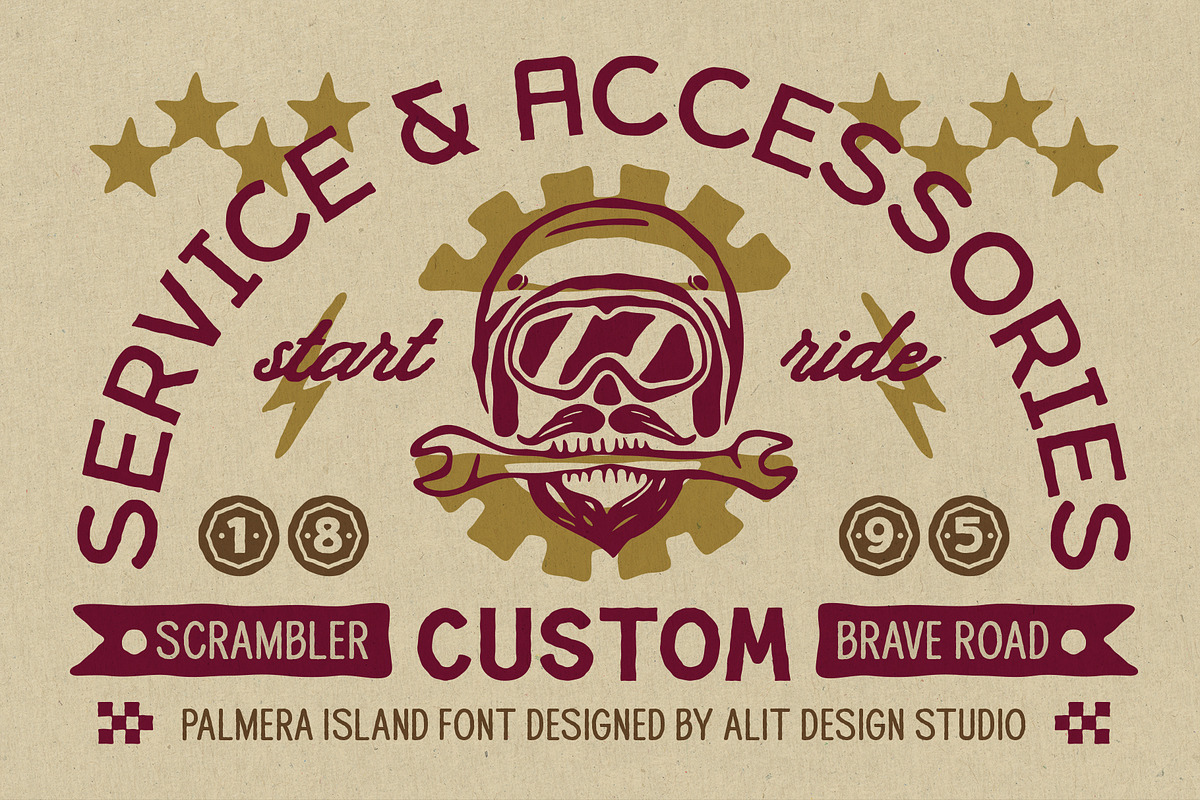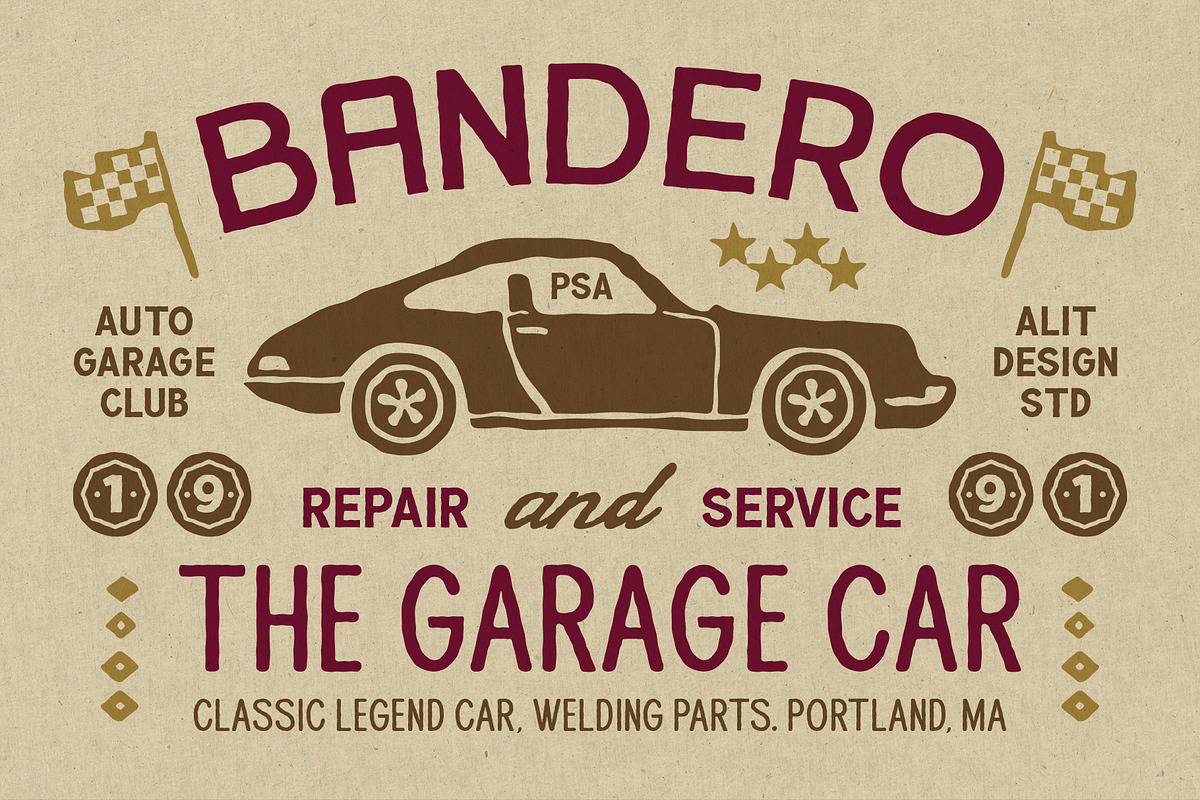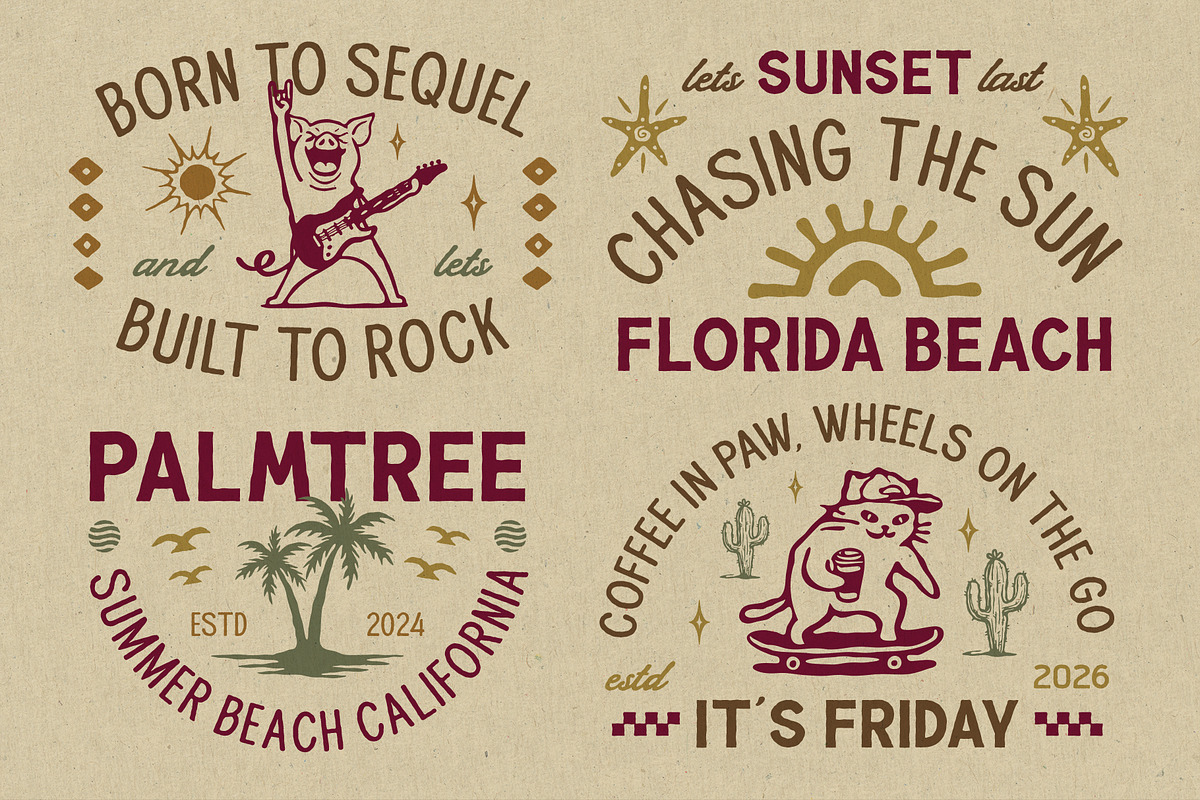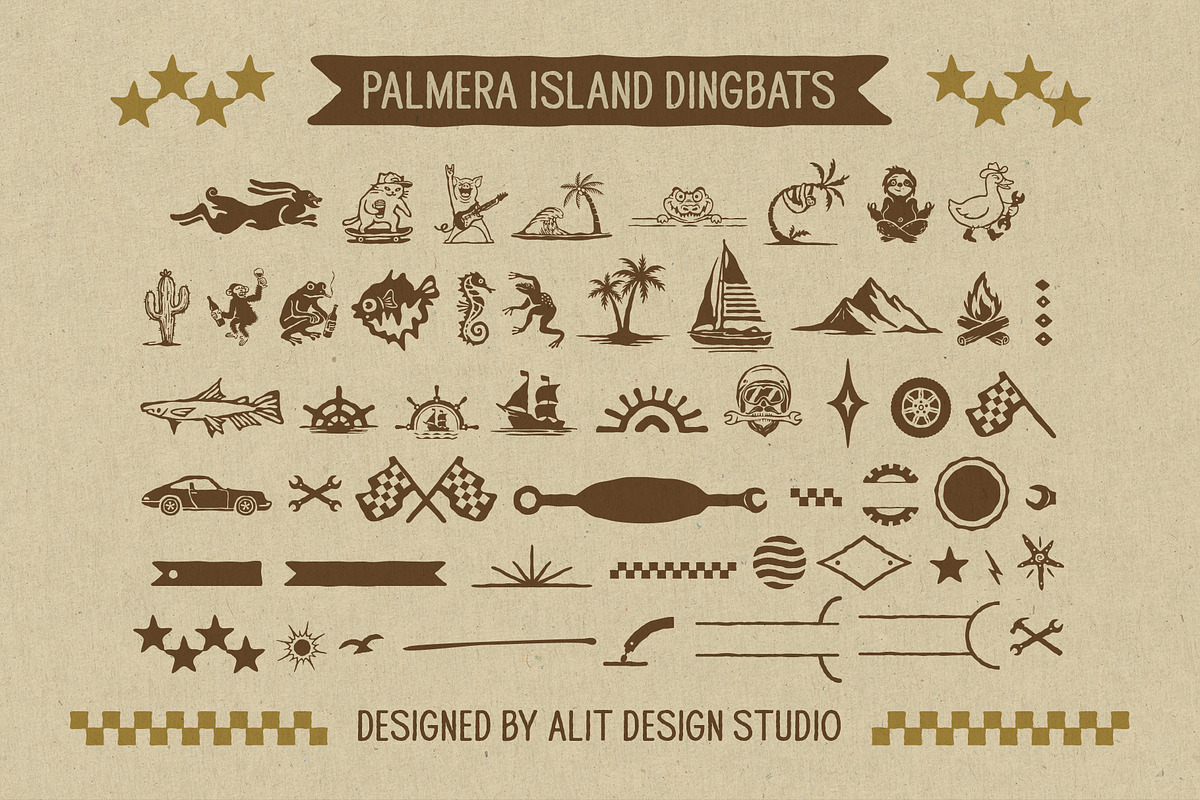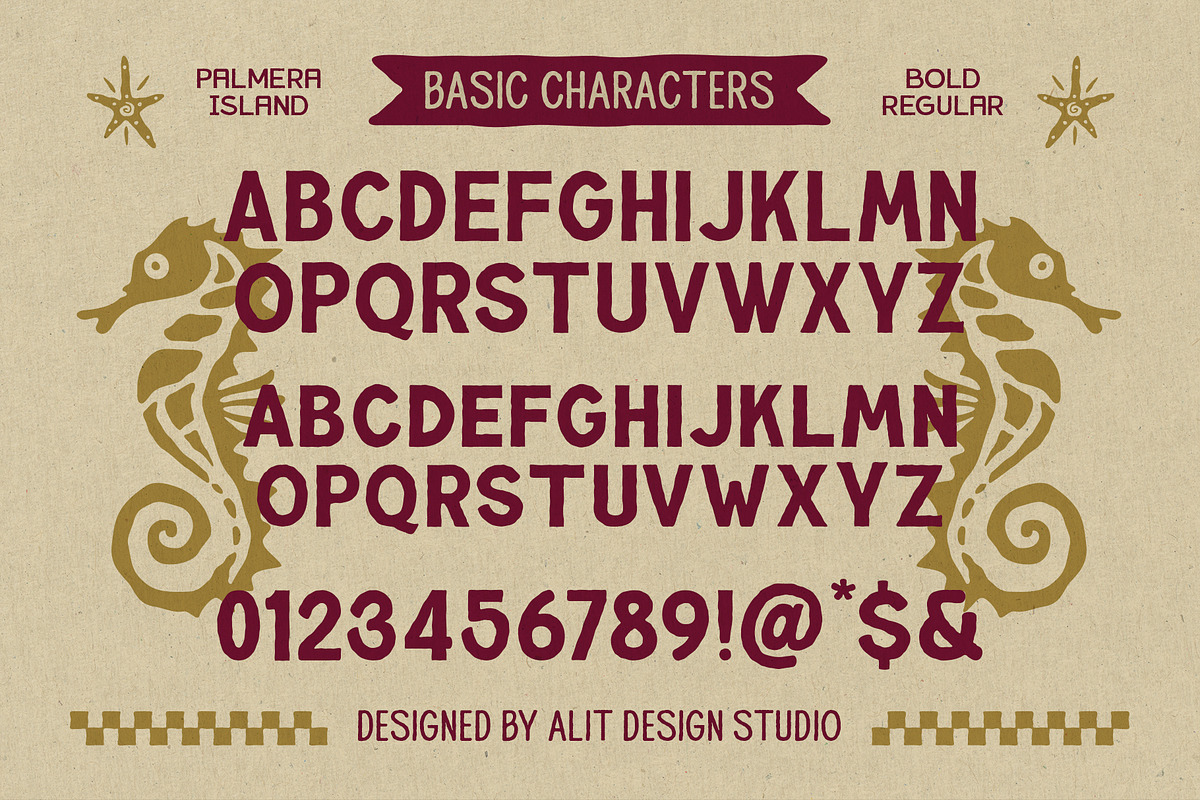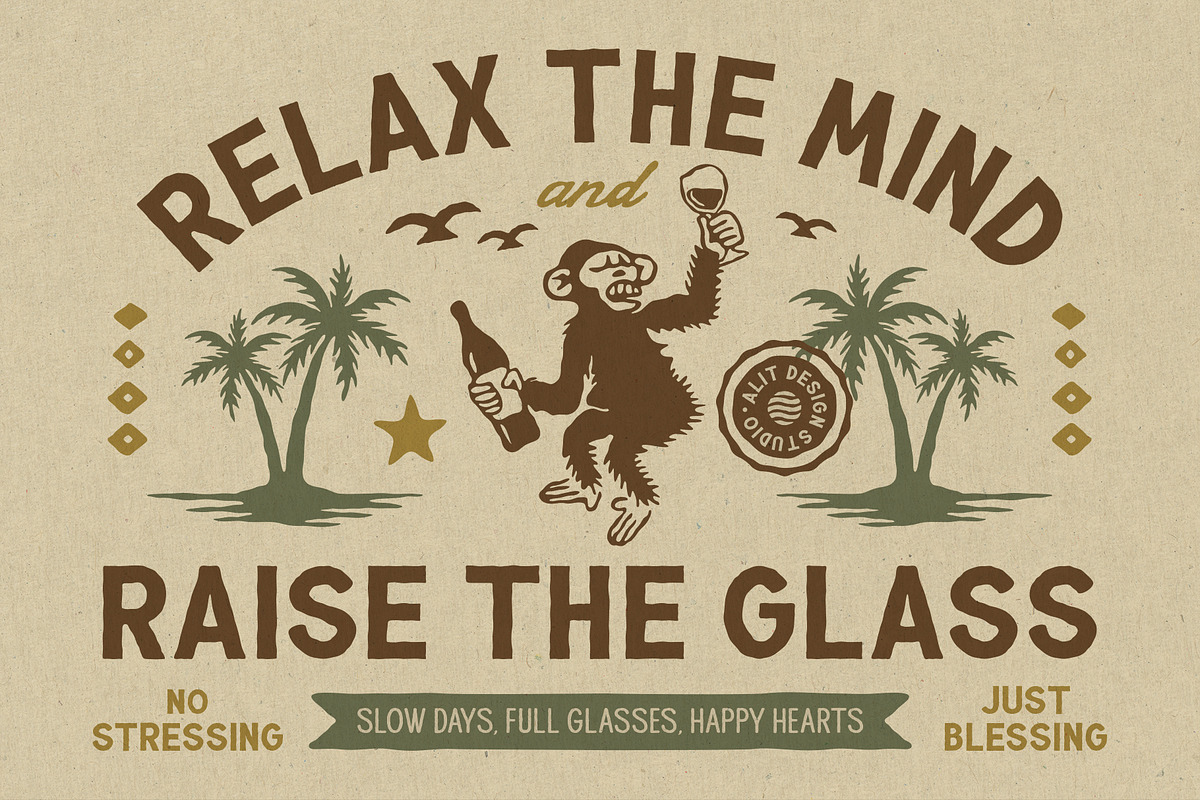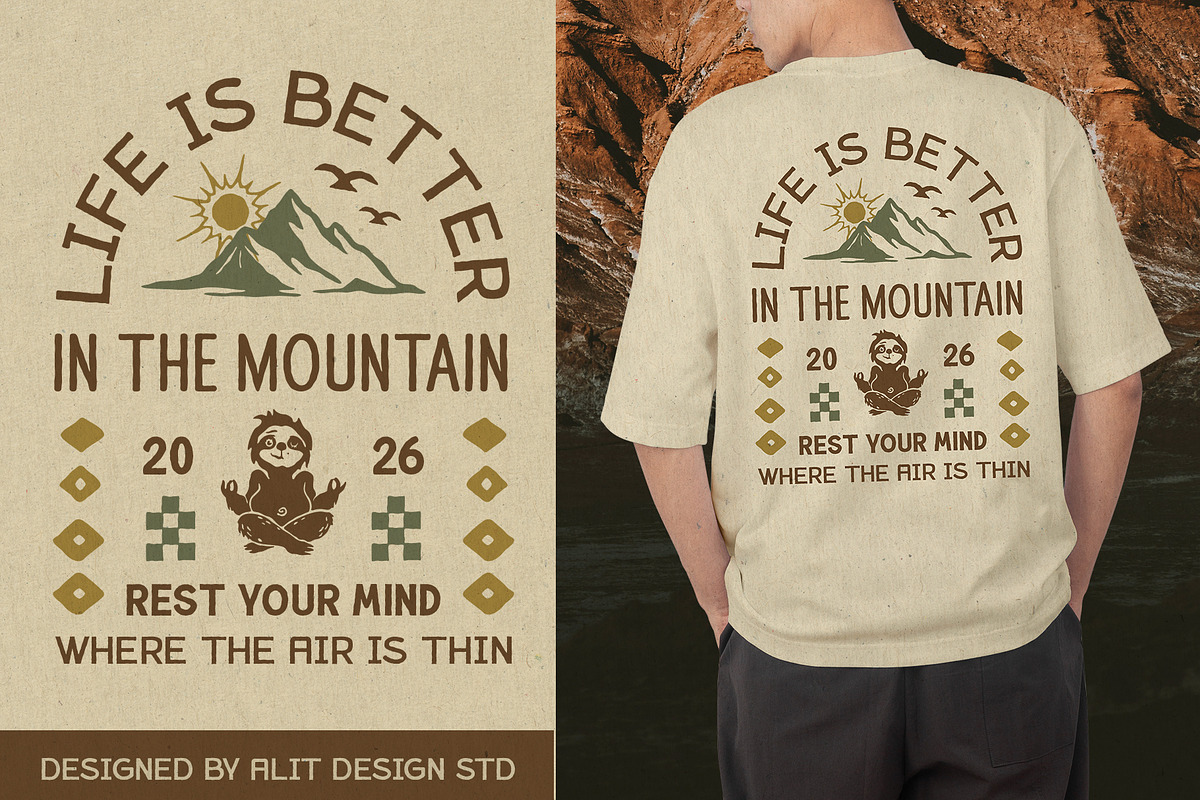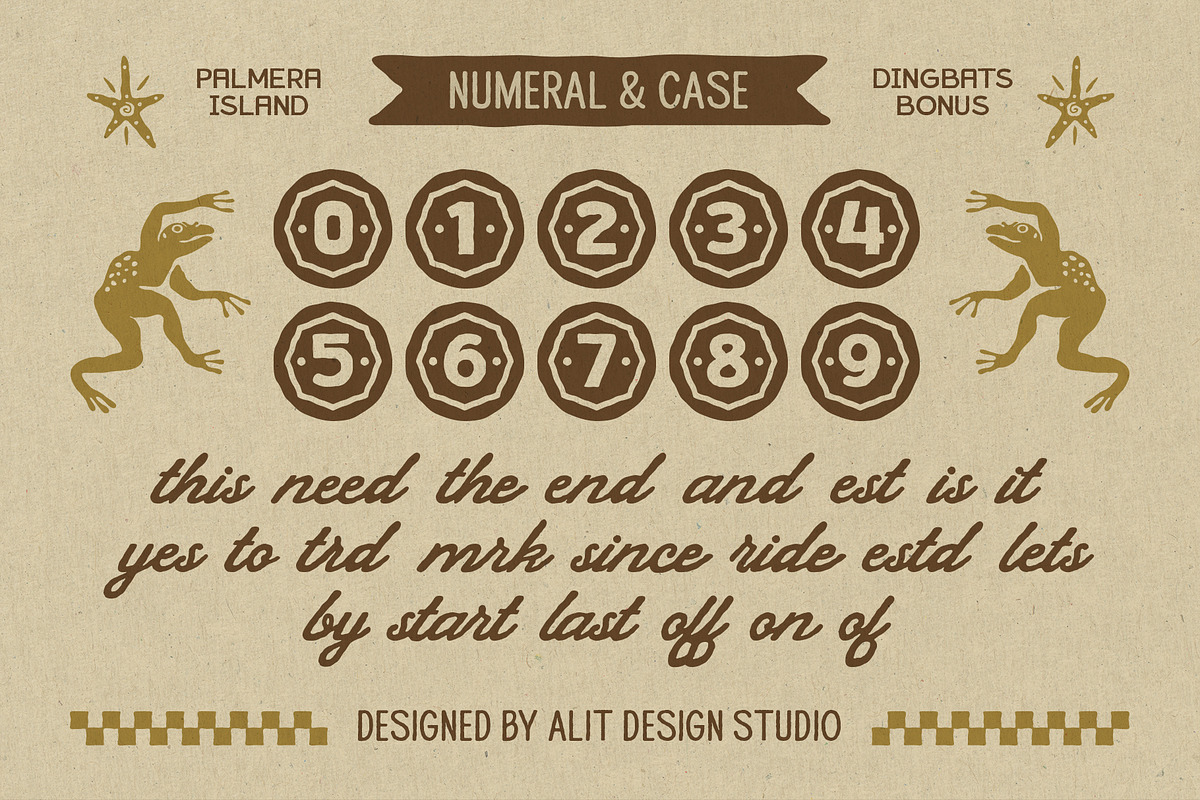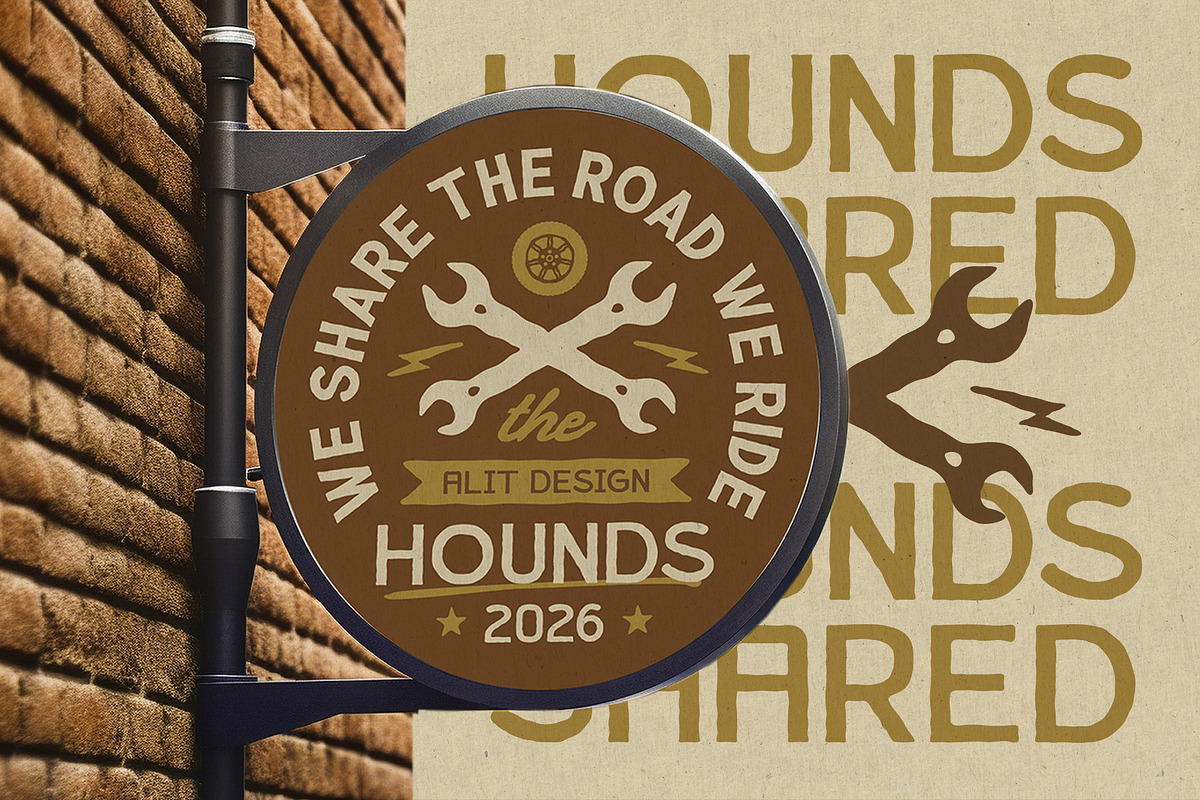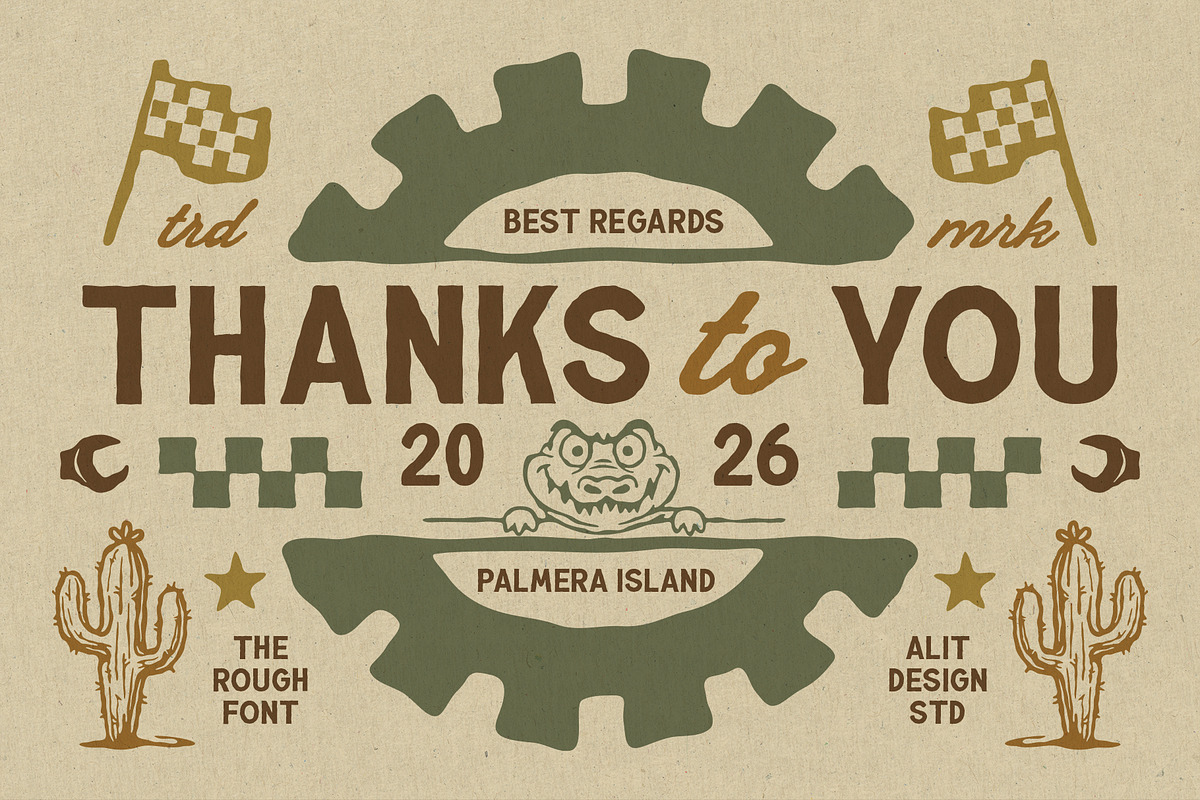
Palmera Island Typeface
Palmera Island Typeface – The Soul of Vintage Adventure
Unleash the spirit of the wild and the warmth of the sun with Palmera Island, a masterfully crafted rough-stamp typeface designed for those who breathe adventure. Inspired by the authentic textures of vintage hand-stamped graphics, this font family brings a raw, organic, and timeless feel to any creative project.
Whether you are designing for a tropical surf brand, a rugged outdoor adventure shop, or a trendy lifestyle boutique, Palmera Island provides that sought-after "human touch" that modern digital fonts often lack.
The Texture of Authenticity
Palmera Island isn't just a font; it’s a complete design toolkit. The Rough Stamp effect is meticulously detailed, mimicking the natural imperfections of ink on paper or wood. This gives your logos, t-shirts, and posters an instant heritage feel—as if they were printed in a small garage studio decades ago.
Product Highlights:
- 4 Distinct Font Styles: From clean-yet-rugged to bold and weathered, giving you the flexibility to layer and match for the perfect vintage aesthetic.
- Massive Glyph Count: Includes 1505 glyphs, offering a rich variety of alternates and ligatures to ensure your typography looks custom-made every time.
- Bonus Dingbats & Illustrations: To make your design process even smoother, we’ve included a dedicated Palmera Island Dingbats set. It features over 50+ hand-drawn illustrations—from surfing animals (sloths, cats, pigs) to nautical elements, mountains, and garage-style icons.
- Multilingual Support: Ready for global reach with extensive character support.
- Full Character Sets: Includes Basic Characters, Numerals, Punctuation, and specialized Catchwords (est, trd mrk, ltd, etc.).
- Apparel Design: Ideal for t-shirt graphics that need a bold, "lived-in" look.
- Branding & Logos: Create memorable identities for cafes, auto garages, or outdoor brands.
- Packaging: Add an artisanal touch to product labels and hangtags.
- Social Media: Stand out with authentic, handcrafted quotes and promotional banners.
Bring your designs to life with the rustic charm of Palmera Island. Designed with passion by Alit Design Studio.